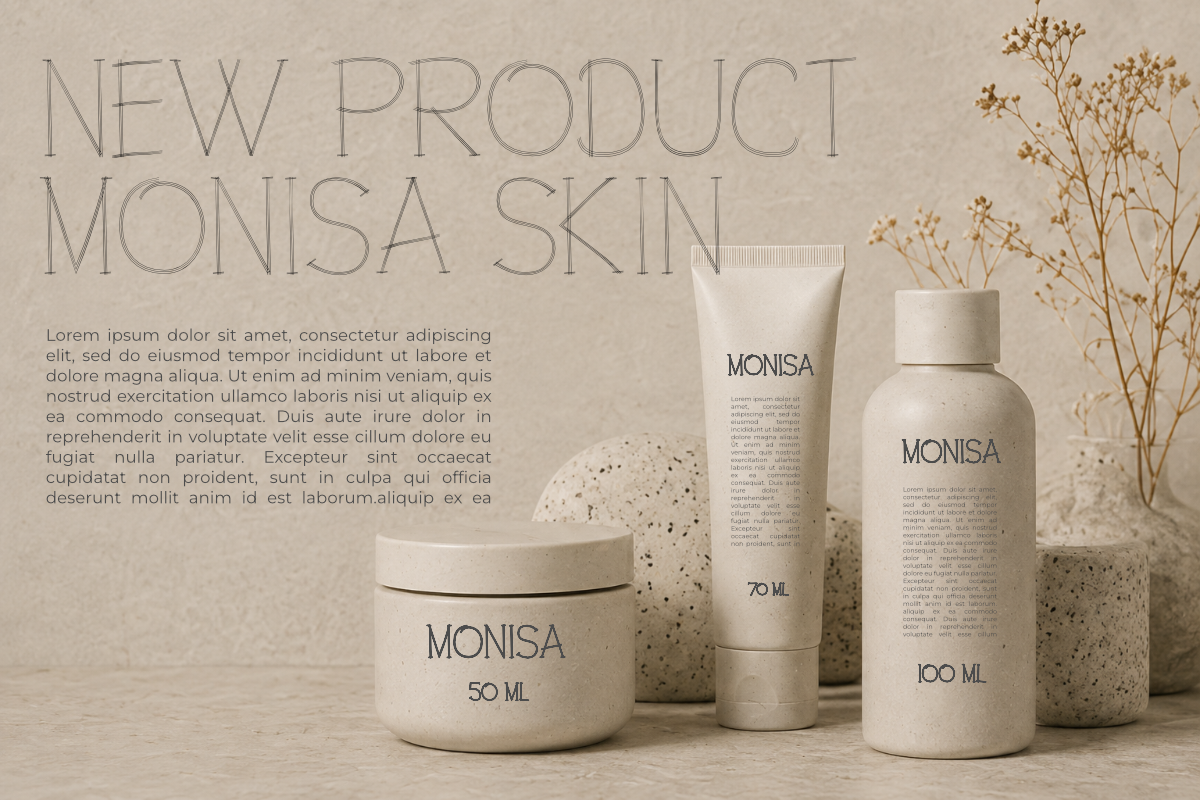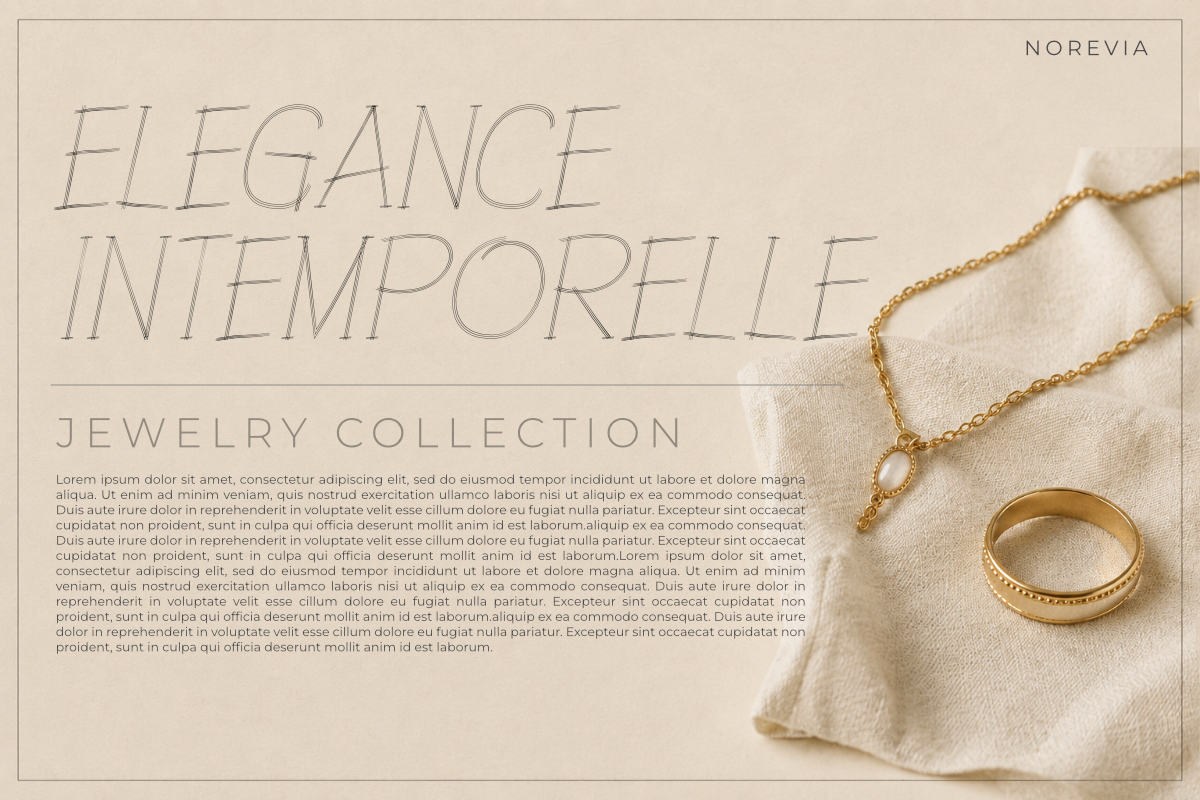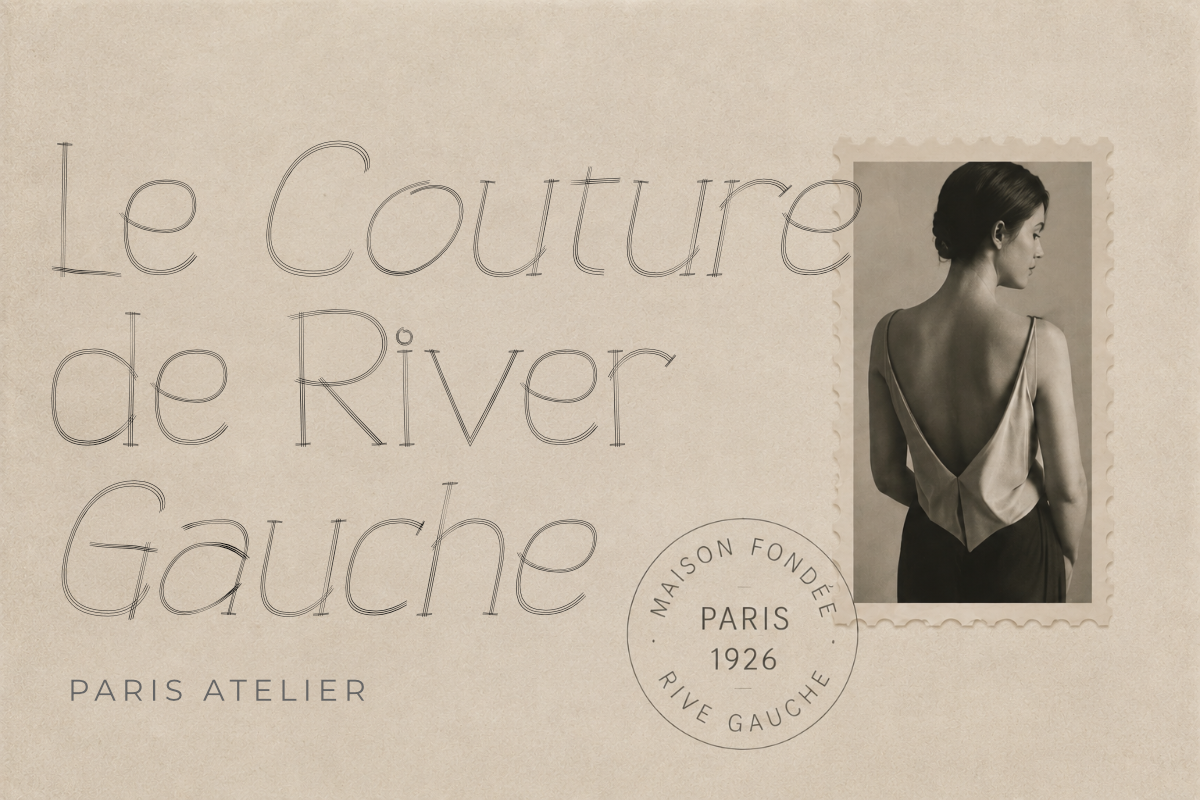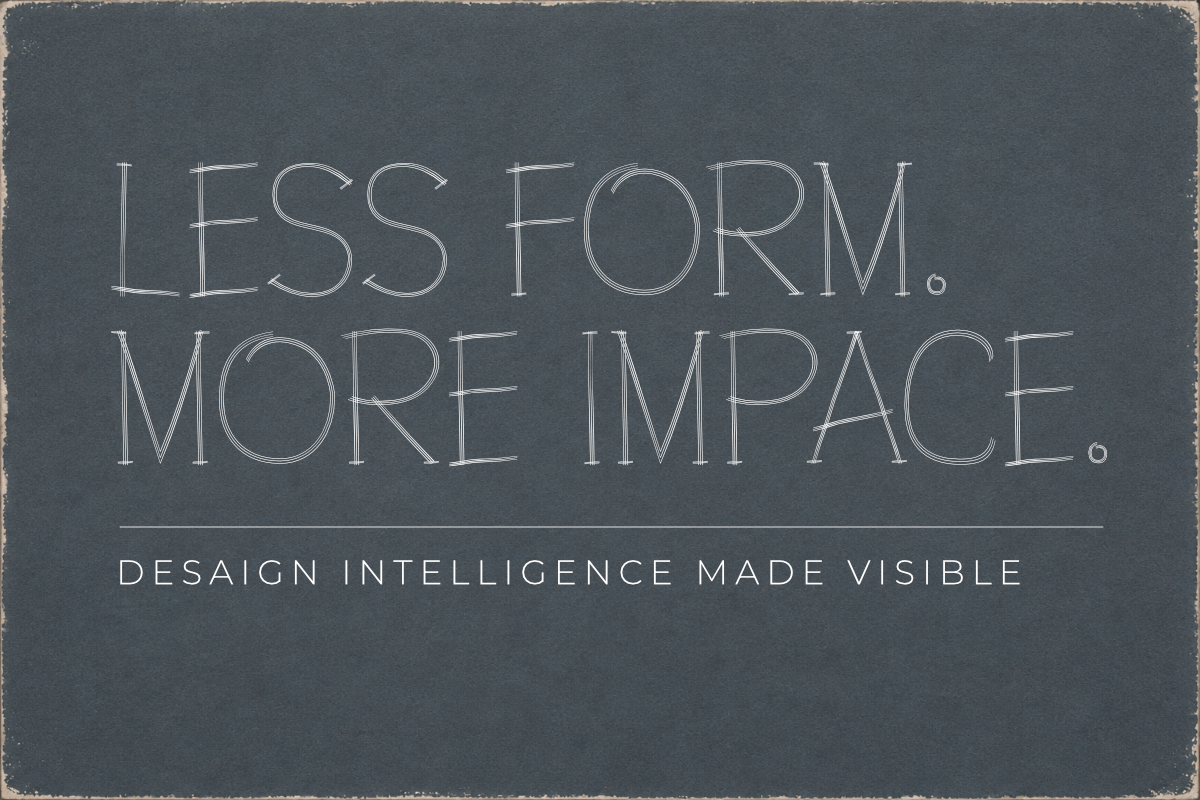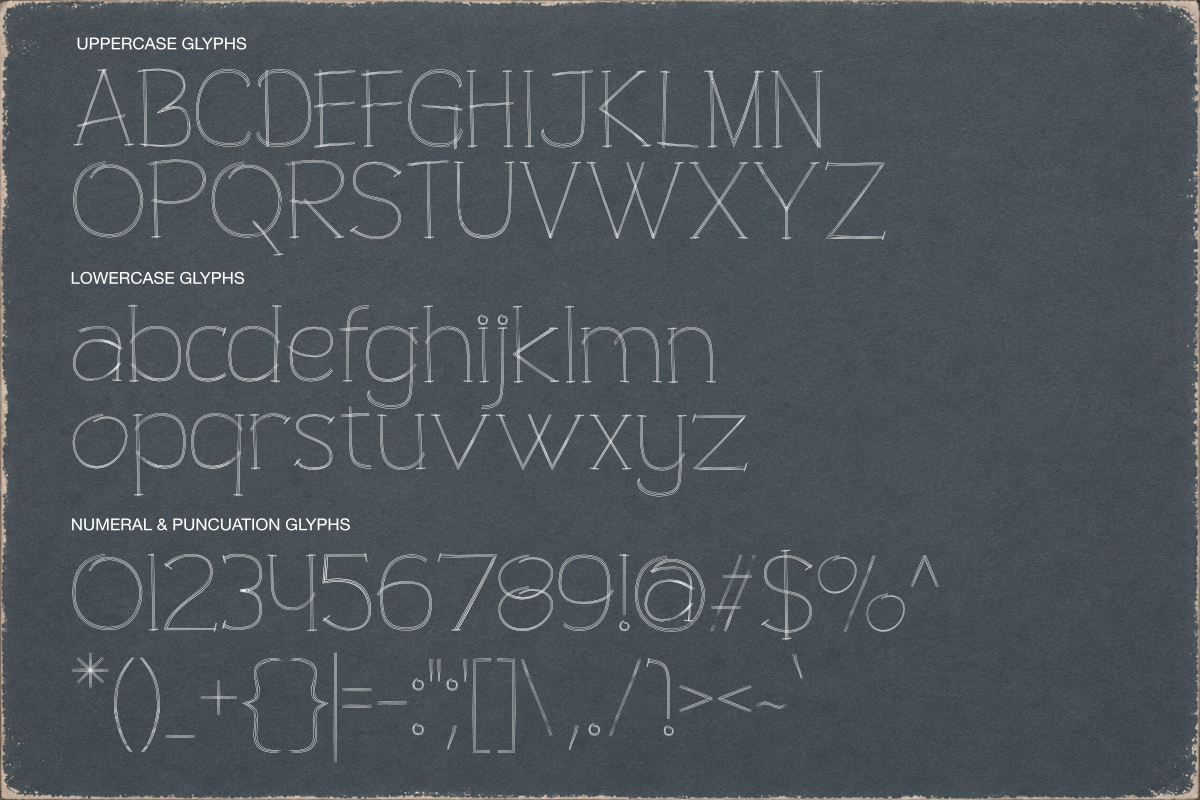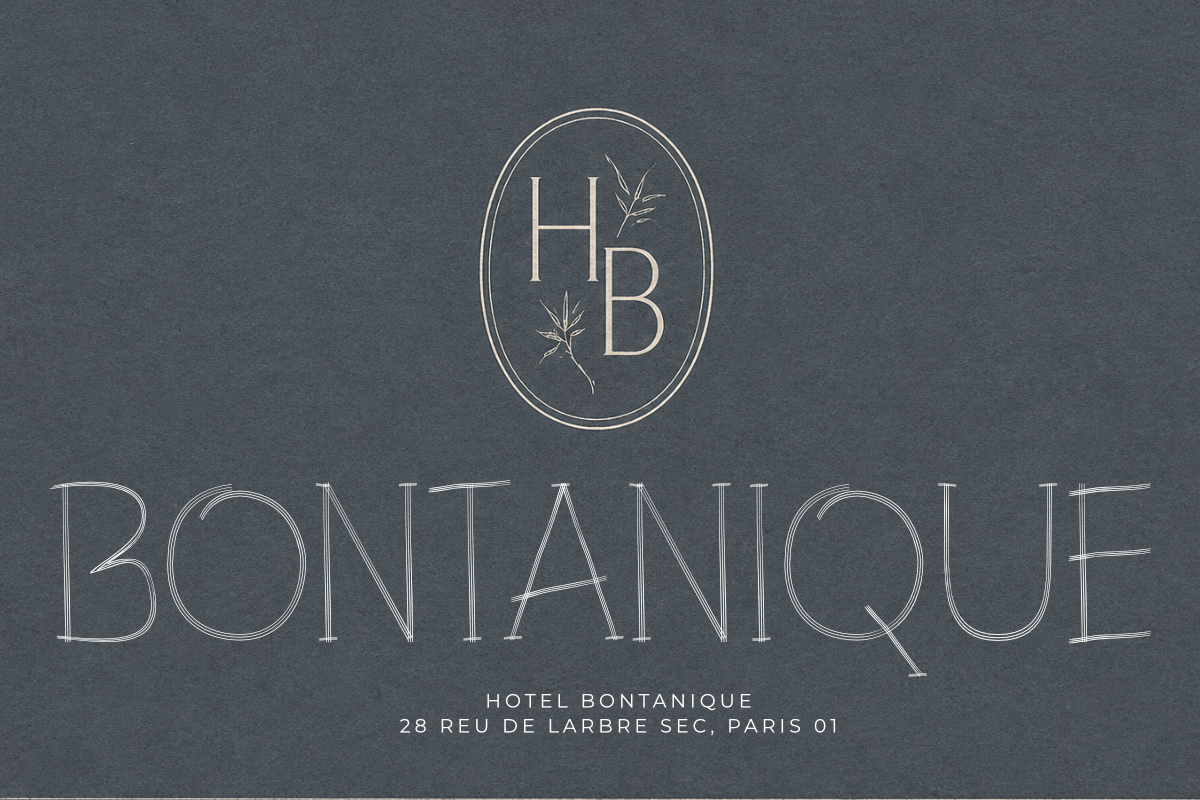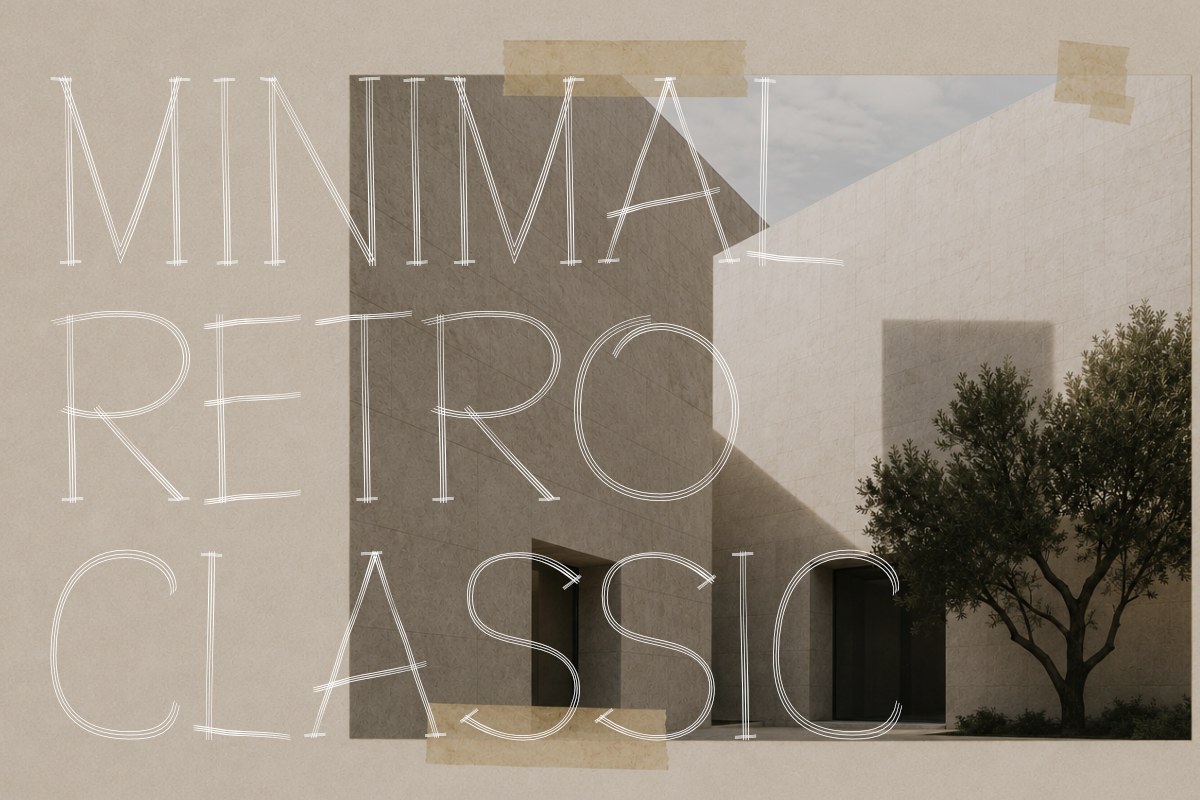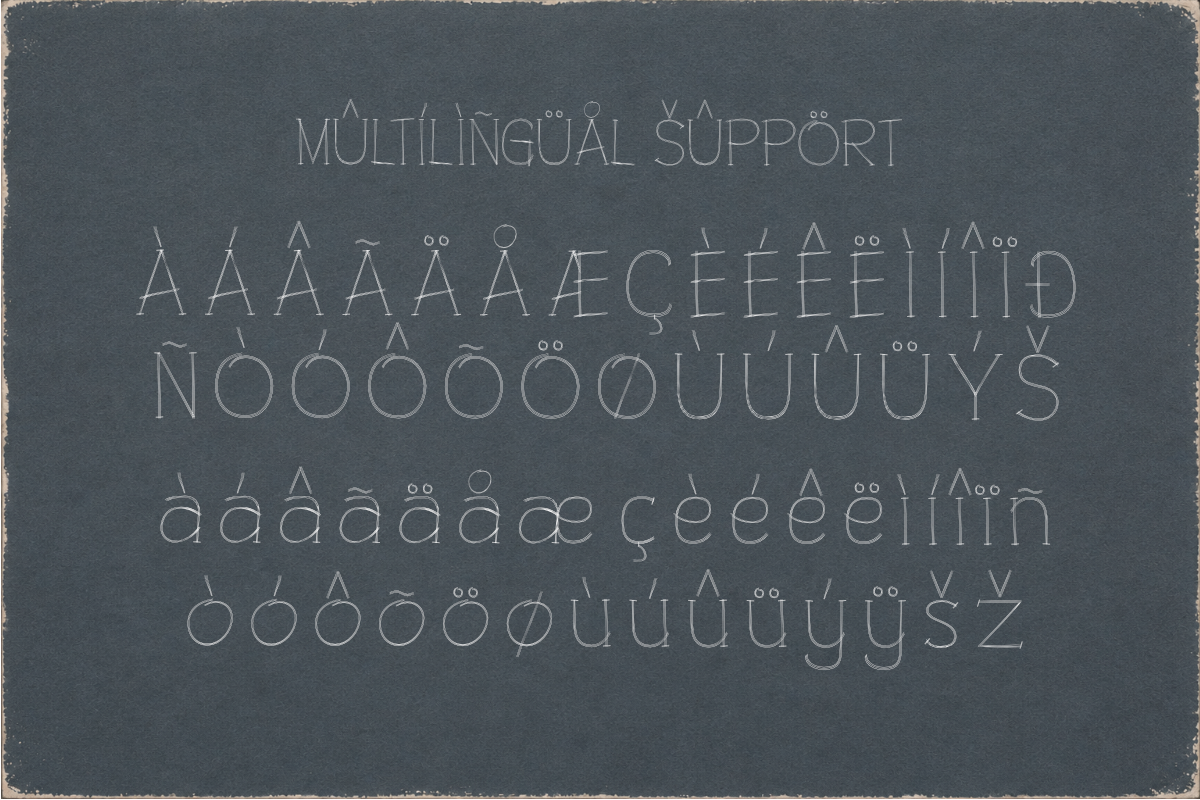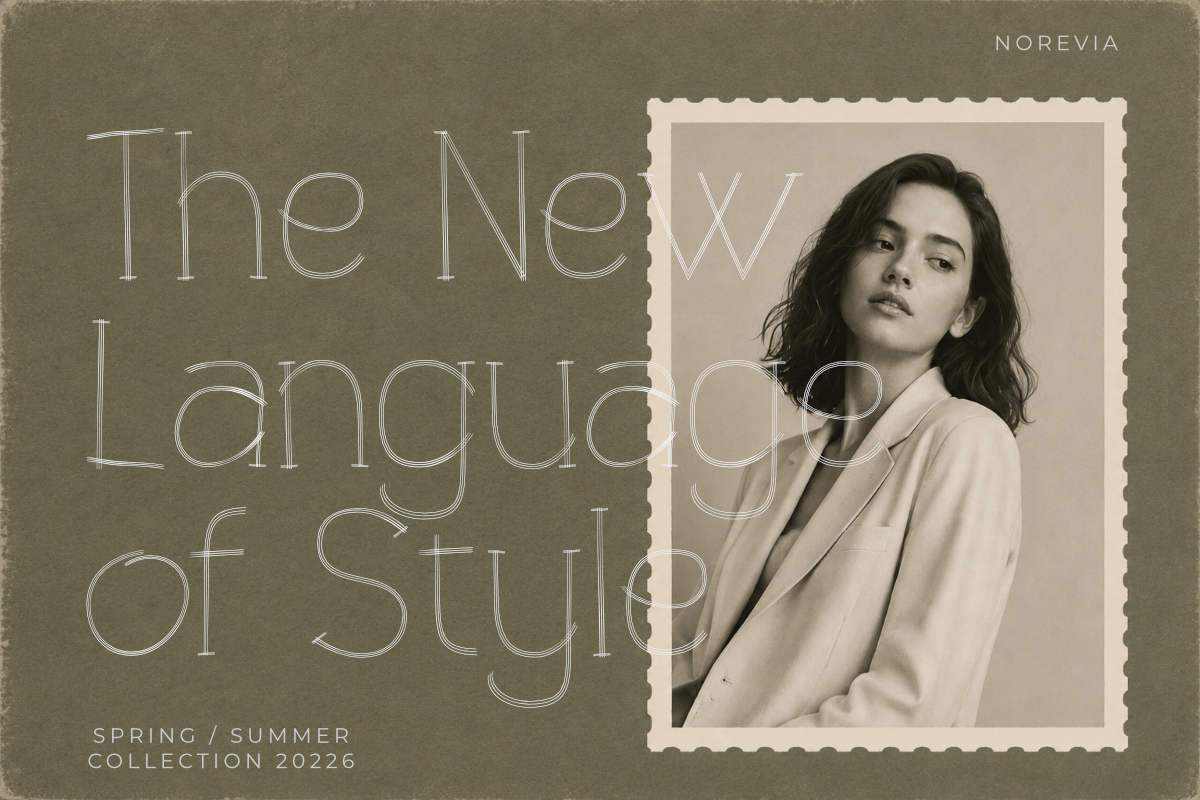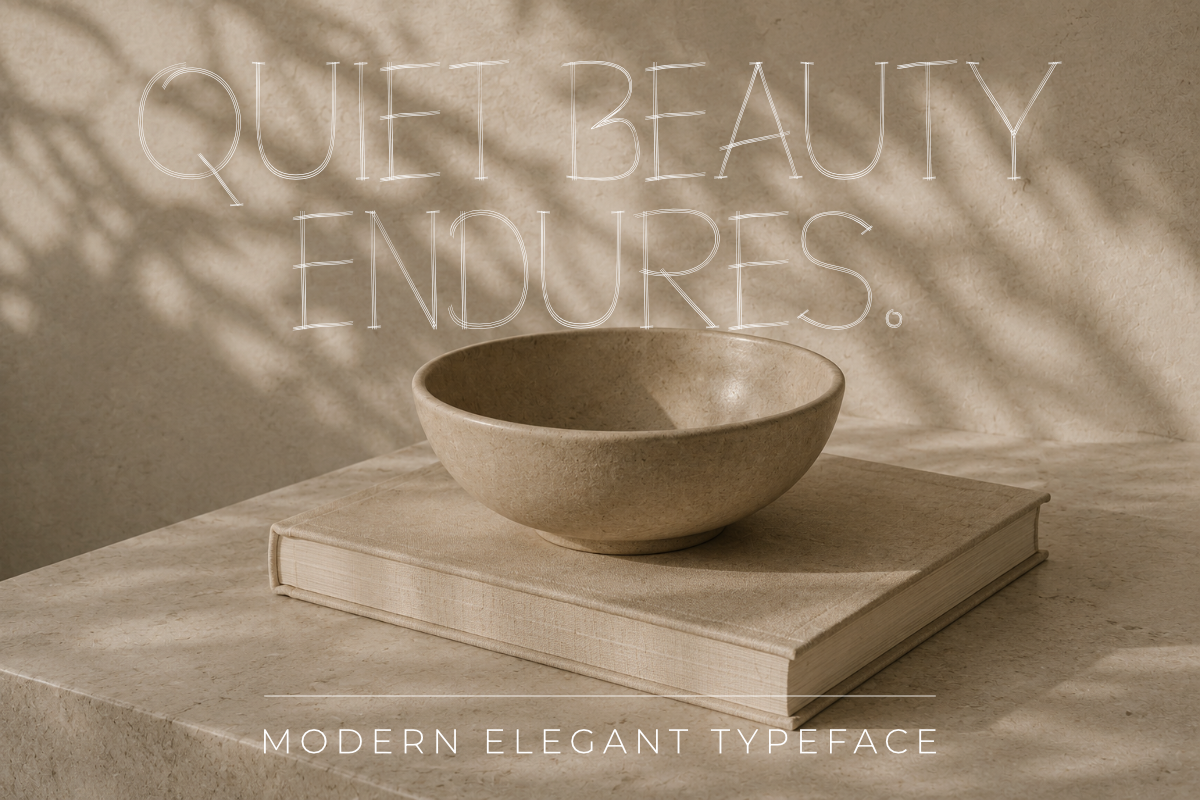
NOREVIA — Elegant Hairline Serif
NOREVIA is an elegant hairline serif display typeface created for refined, sophisticated, and timeless visual identities.
Featuring delicate hairline strokes, tall proportions, graceful serif details, and an airy editorial character, NOREVIA combines the elegance of classic typography with a contemporary and minimalist approach.
Its slender proportions and delicate construction make NOREVIA especially beautiful when used at large sizes, allowing every letterform to become part of the visual composition. The typeface works particularly well with generous spacing, neutral colors, natural textures, photography, and understated luxury layouts.
Inspired by fashion editorials, European aesthetics, luxury packaging, architecture, beauty, jewelry, hospitality, and contemporary lifestyle branding, NOREVIA brings a quiet and sophisticated personality to every design.
NOREVIA is ideal for logos, branding, fashion identities, magazine headlines, editorial layouts, perfume and beauty packaging, jewelry branding, hotel identities, restaurant menus, invitations, posters, architecture studios, photography projects, social media graphics, and other premium creative projects.
Whether used for a sophisticated logo, an elegant fashion headline, or a minimal editorial composition, NOREVIA is designed to make typography feel delicate, graceful, and effortlessly refined.
Elegant hairline serif style
Tall and slender proportions
Delicate and refined strokes
Graceful serif details
Numbers and punctuation
Suitable for headlines and display typography
Perfect for branding, editorial, fashion, packaging and luxury design